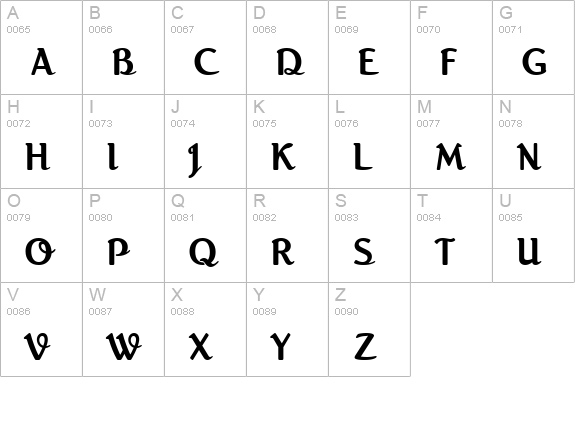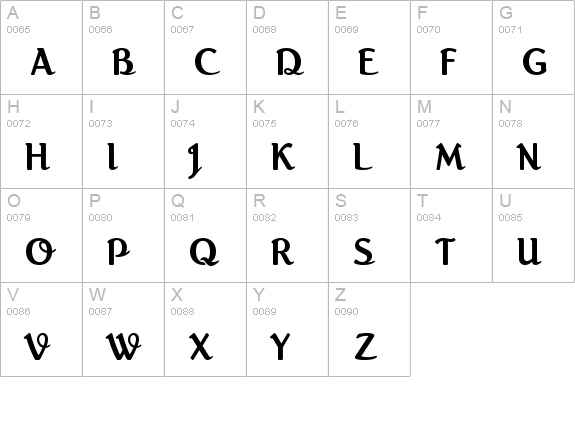
RomanScrD font is a beautiful and elegant typeface that exudes a classic charm with its intricate details and refined strokes. Perfect for adding a touch of sophistication to any project, this font is versatile and timeless. Whether you're creating invitations, logos, or any other design, RomanScrD font is sure to elevate your work to the next level. Best of all, RomanScrD font is available for free download at FontsMarket.com. Simply visit the website and enjoy easy access to this stunning font for all your creative needs. Don't miss out on this opportunity to enhance your designs with the timeless beauty of RomanScrD font.